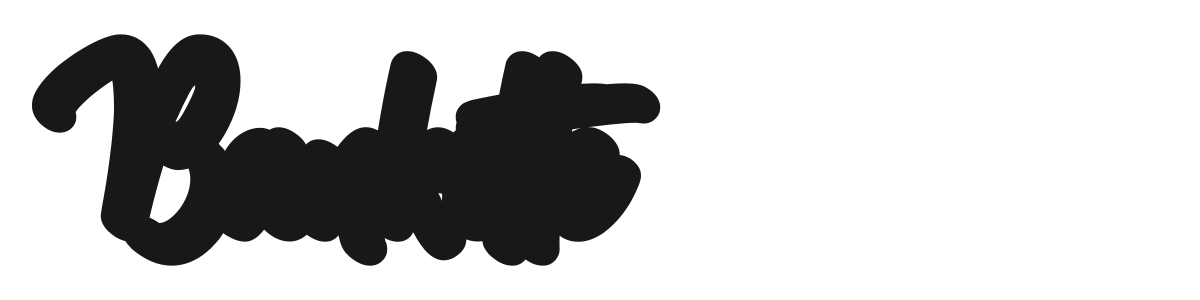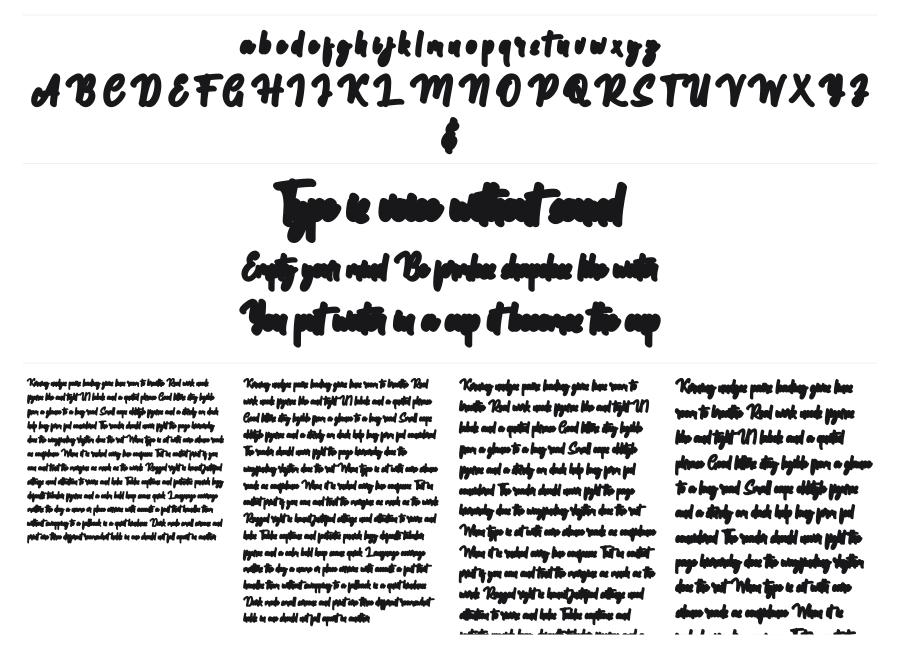
Bankitte
Bankitte is a heavy connected brush script with thick, rounded strokes and a loose gestural flow. The bold weight and near-uniform stroke give it a raw, handmade energy that leans into street and fashion aesthetics. It commands attention at large sizes and works naturally in logo work and poster headlines.